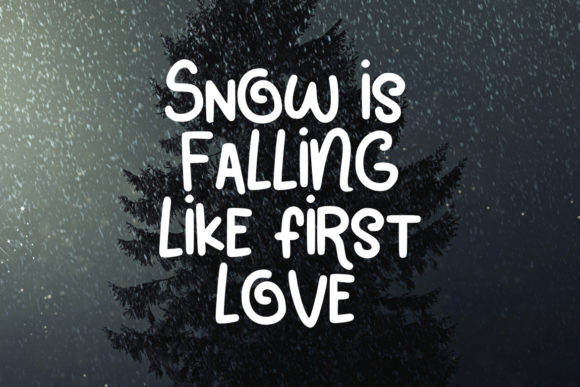
Frozen Snow Font
Frozen Snow is a whimsical display font. Clean and a little bit quirky, this font is the perfect fit for all of your logos, branding, social media, and crafty DIY projects.